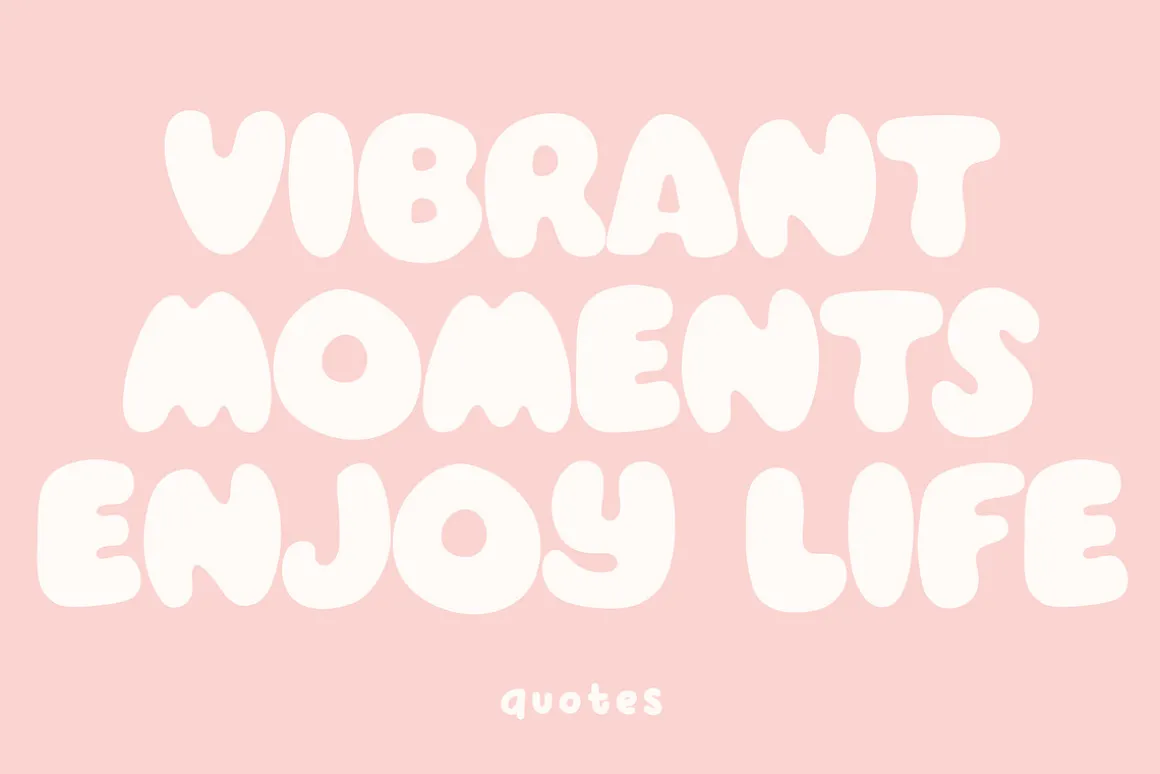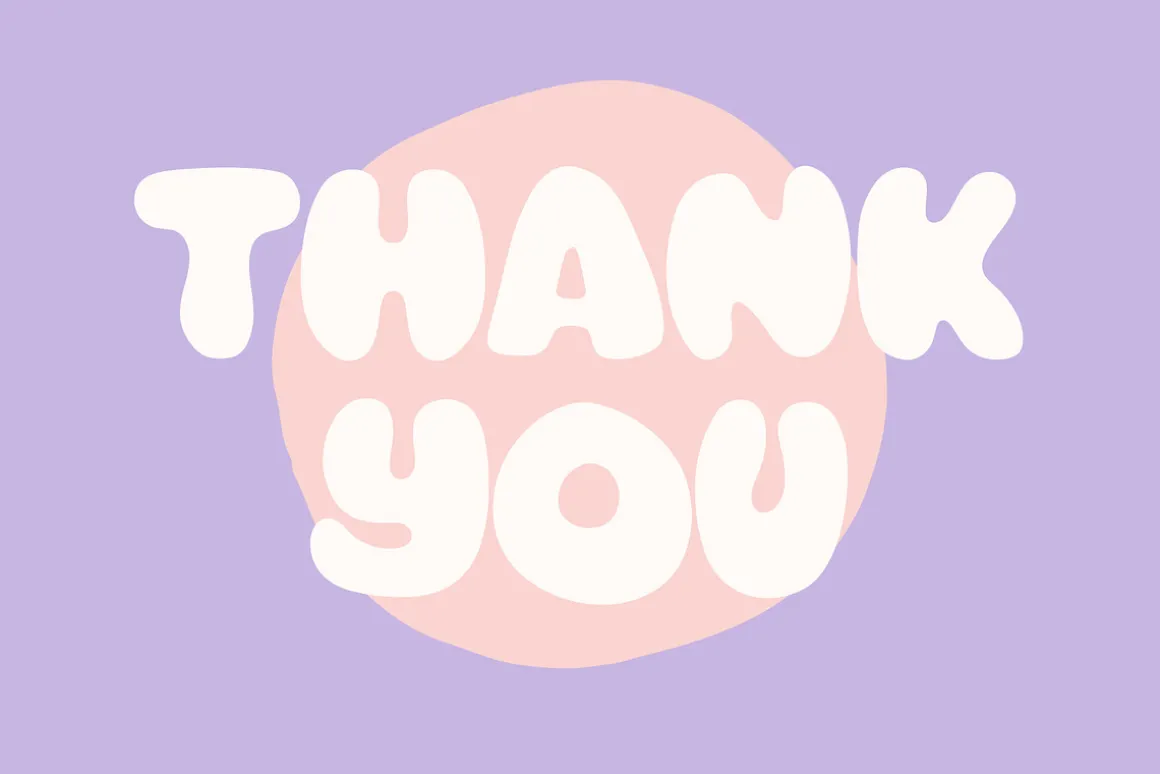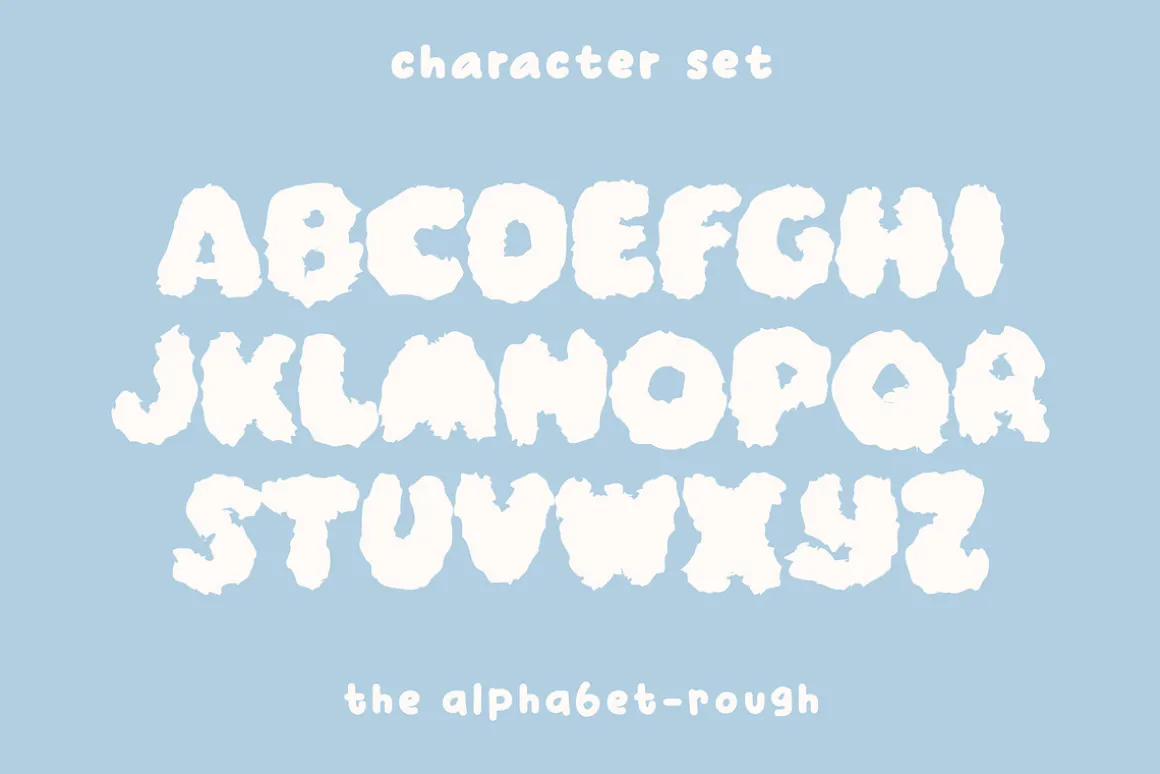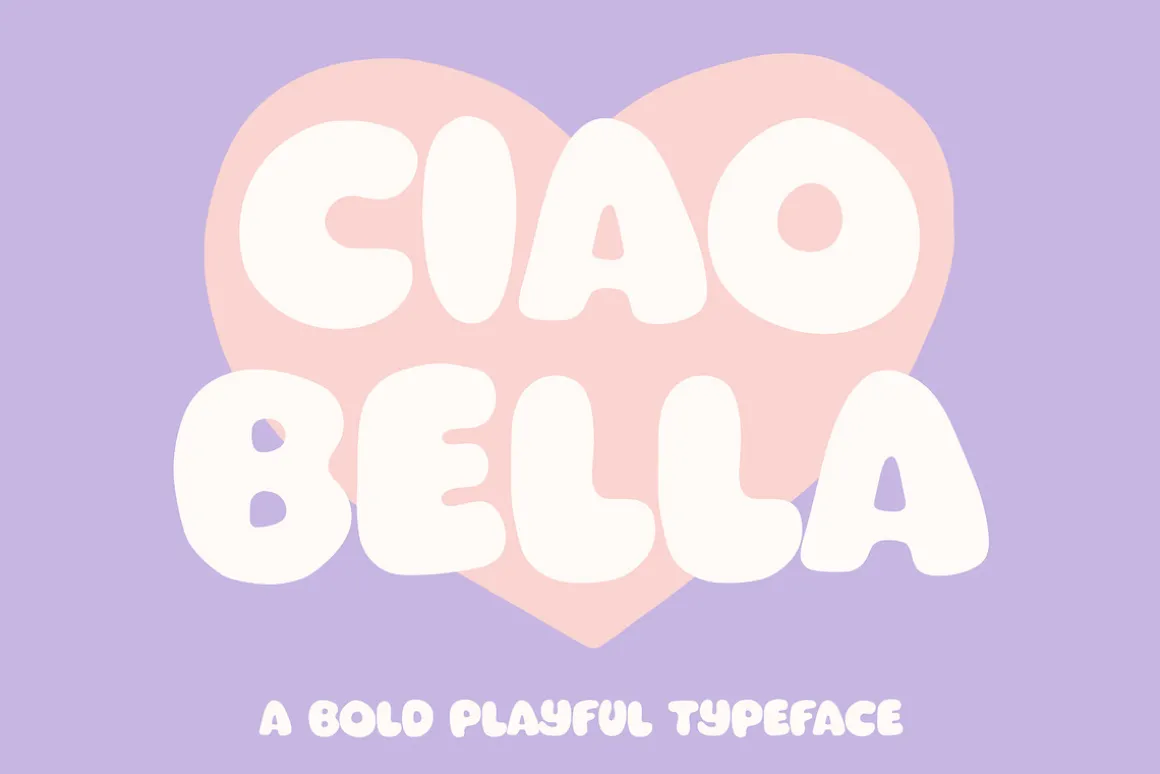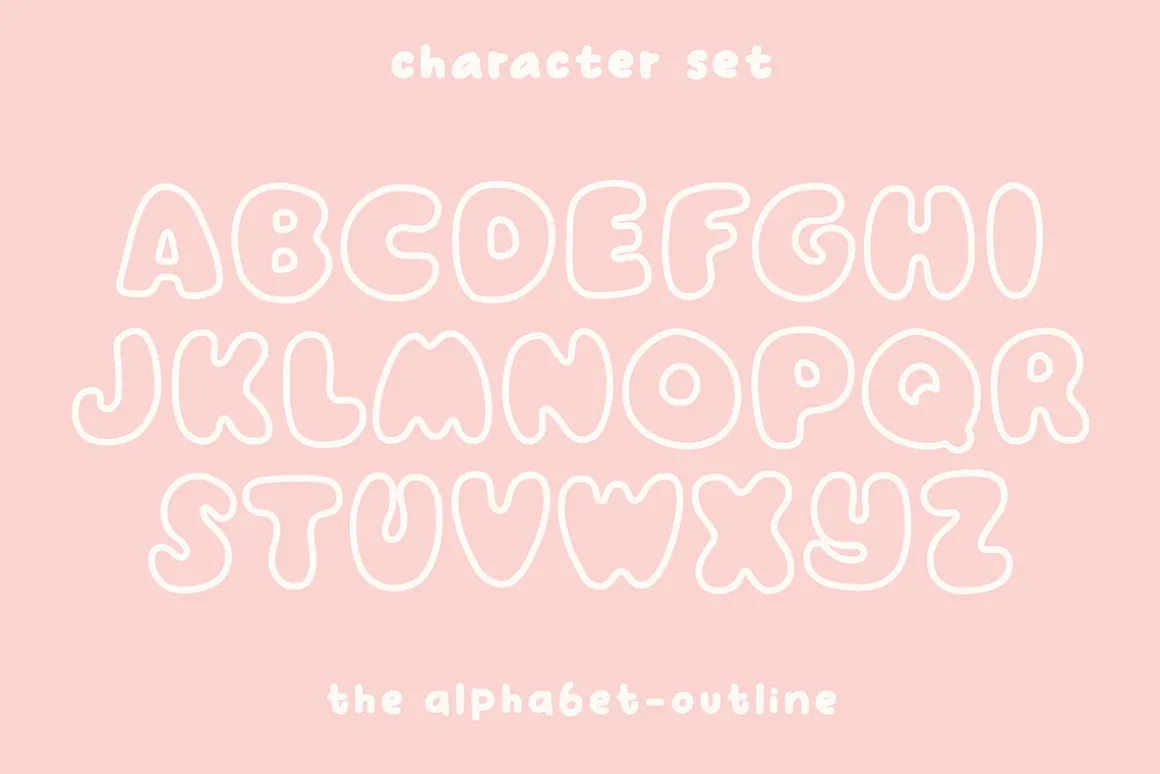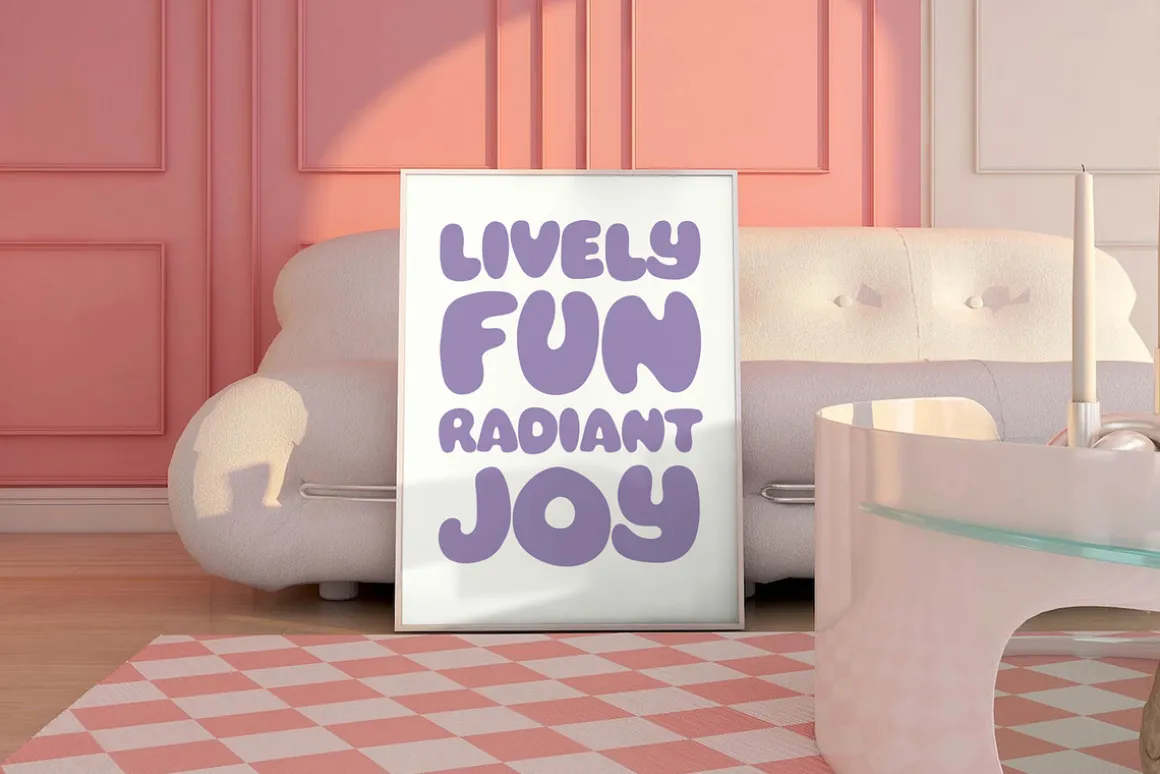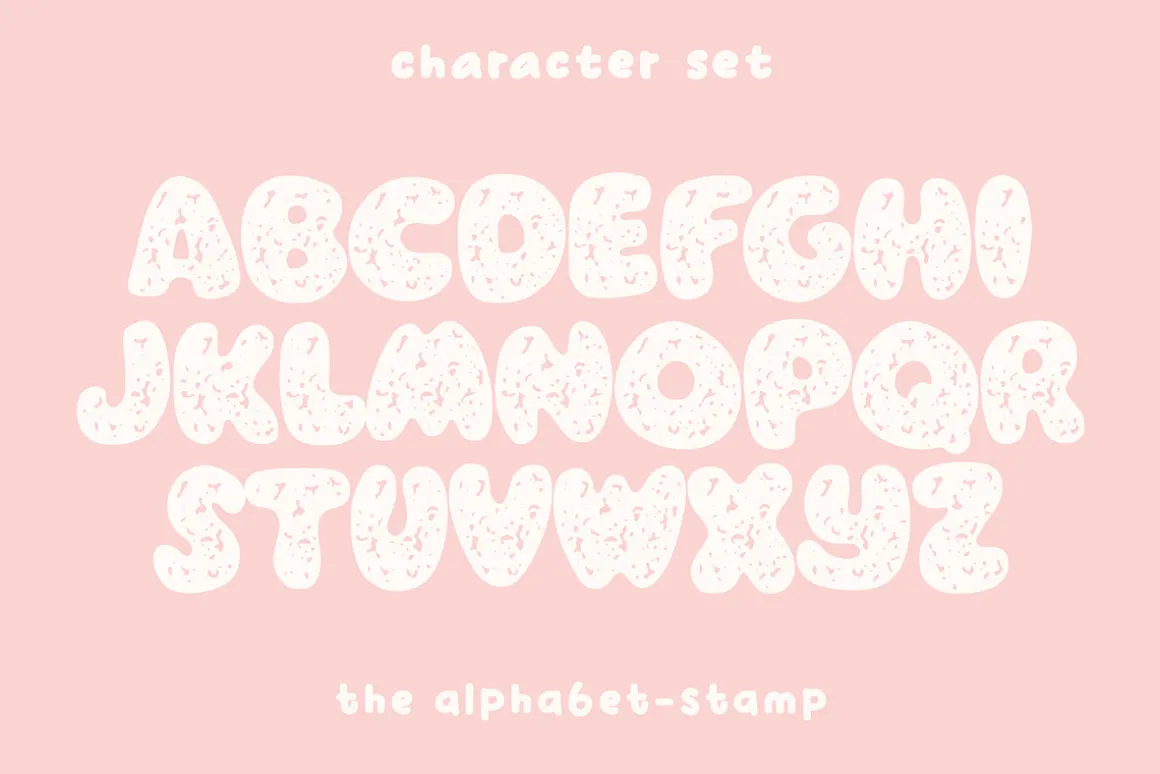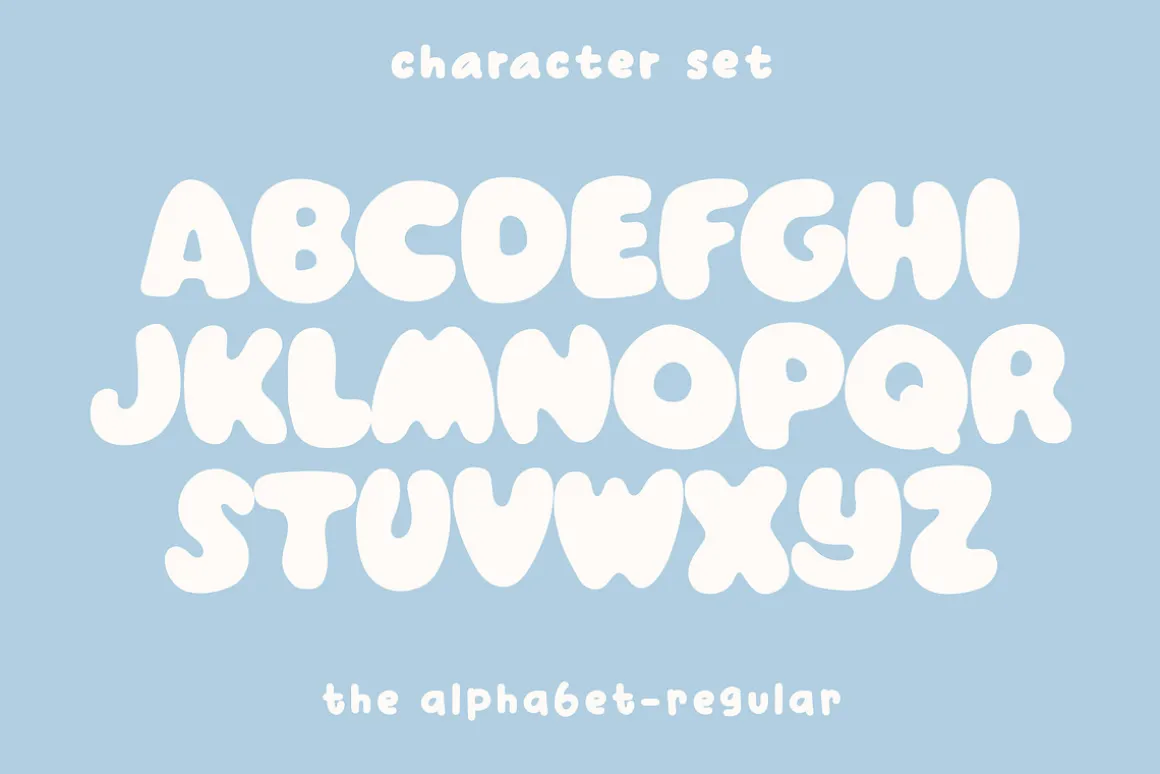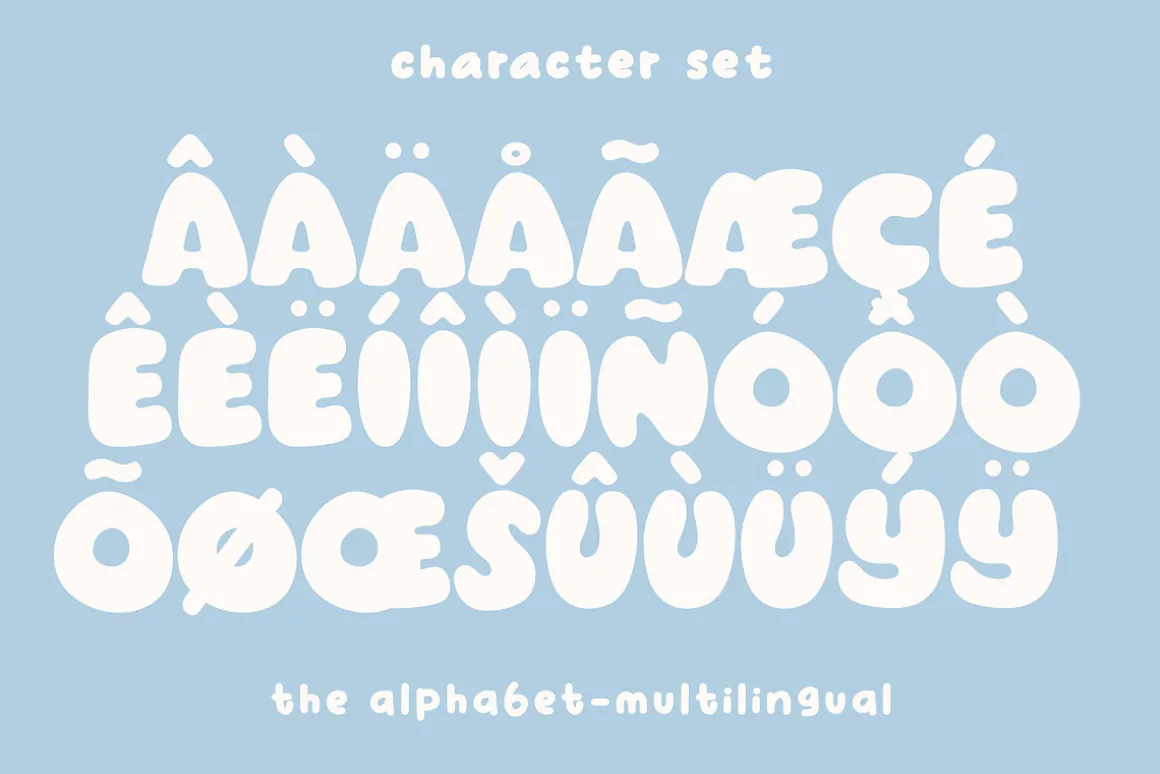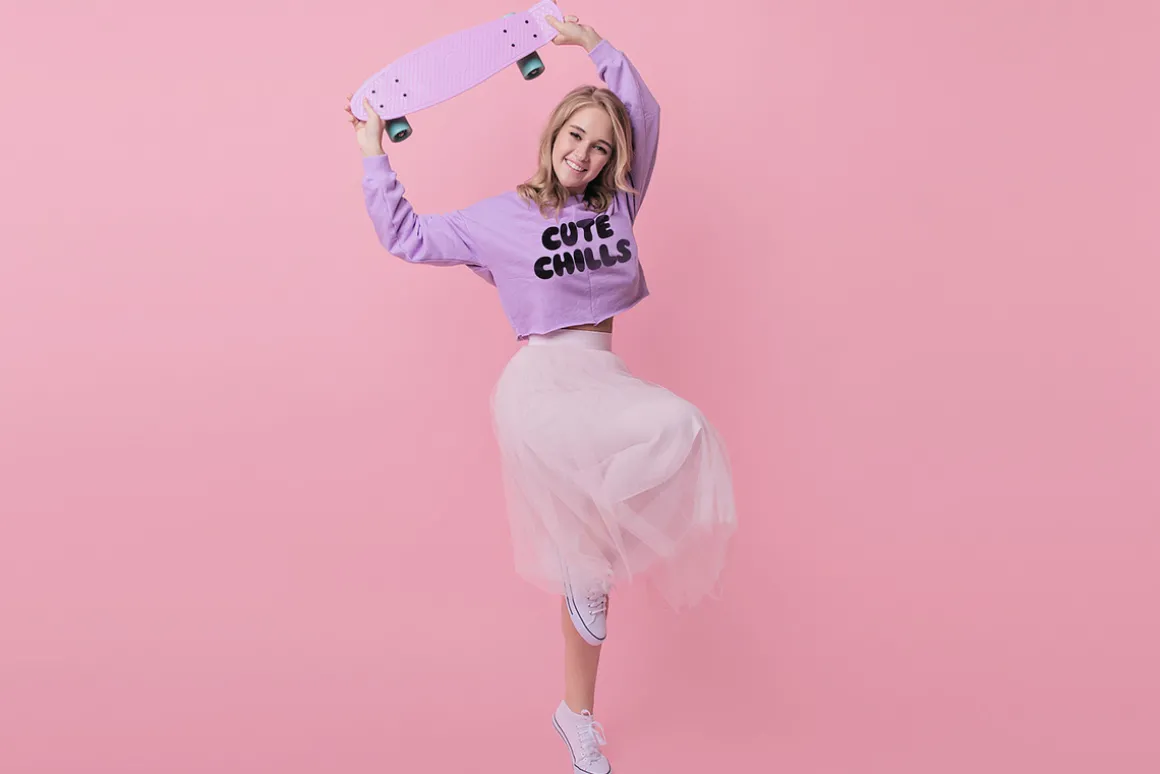
Ciao Bella is a charming and playful font that effortlessly combines a bubbly, bold, and fat typeface style. This typeface available in SVG format, compatible with advanced tools such as Cricut and Glowforge, and for use in Procreate. This font is also included in Accent or Multilingual Font.
The rounded edges and ample curves of the letters give the font a bubbly and approachable feel, while the boldness and thickness add a touch of confidence and impact. Ciao Bella is well-suited for a variety of creative projects, from eye-catching headlines to vibrant branding materials, injecting a lively personality into any visual communication.